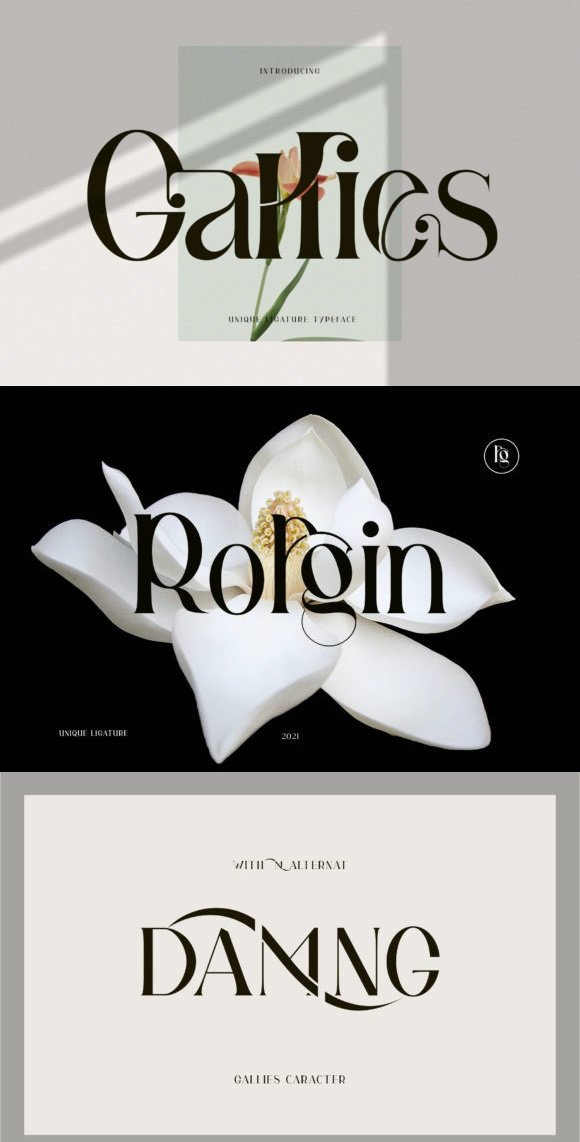
CF - Gallies Font 17216826
Gallies is an elegant and clean serif font. Simple but with a strong visual effect, this font will instantly make your creation more appealing than any others.